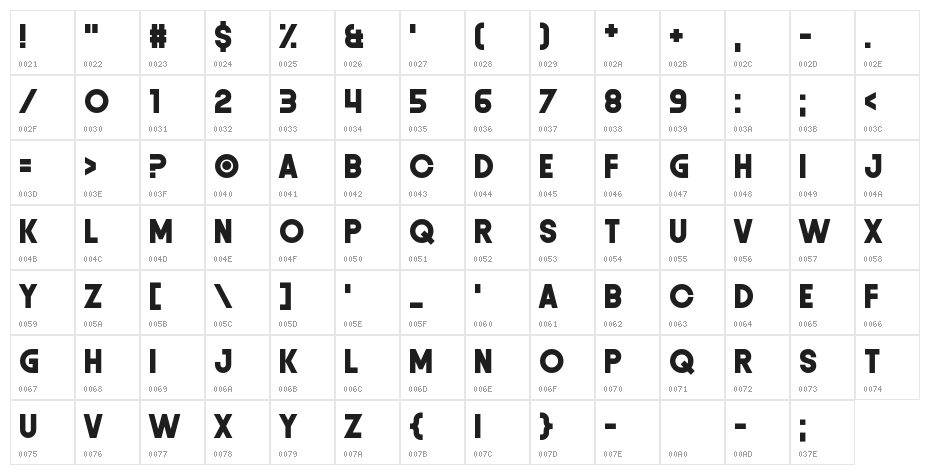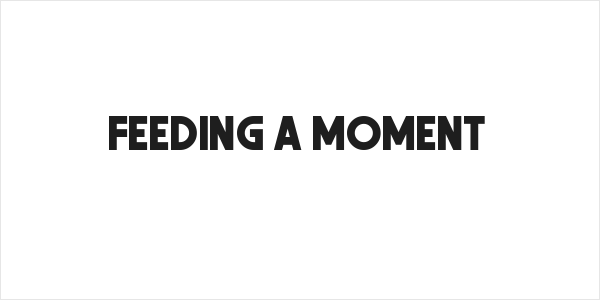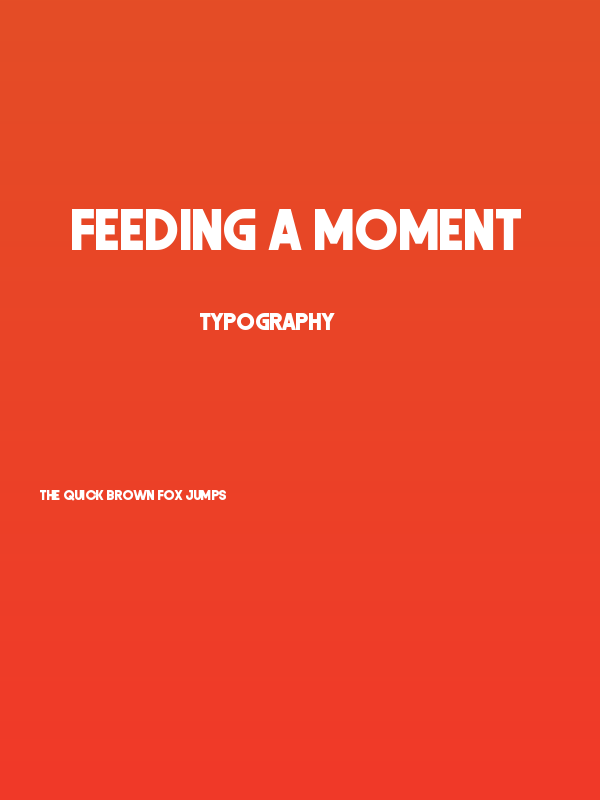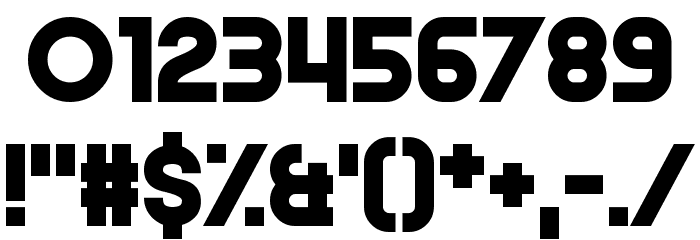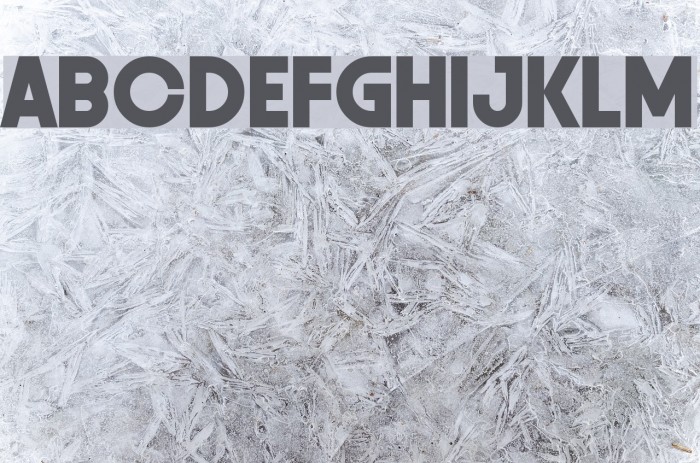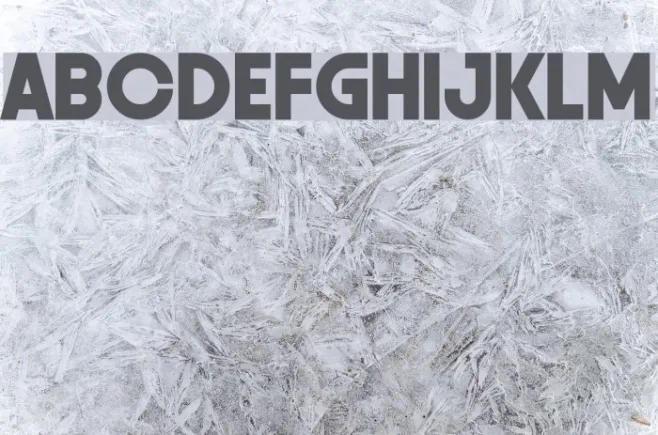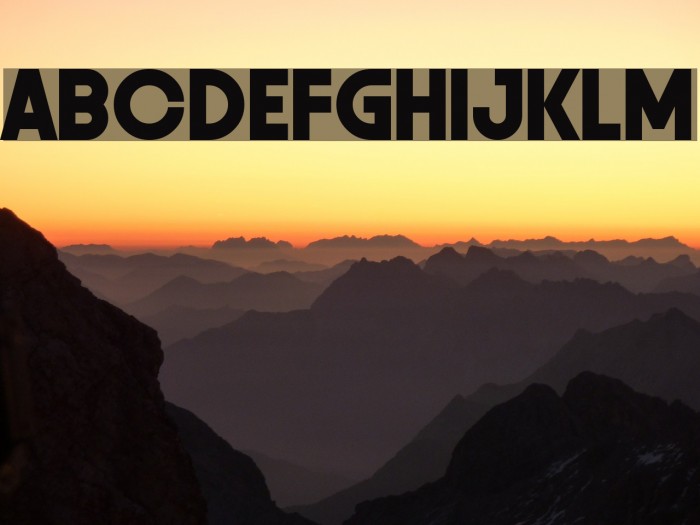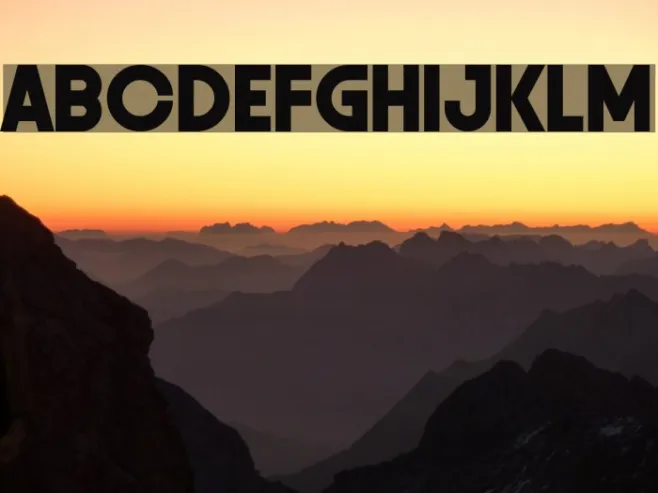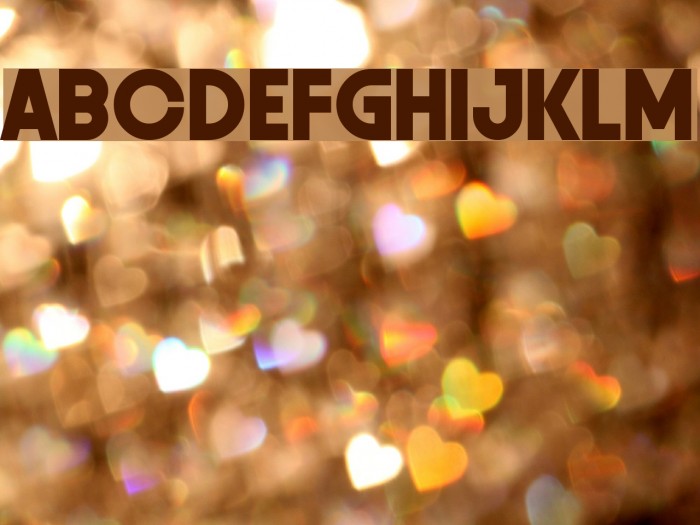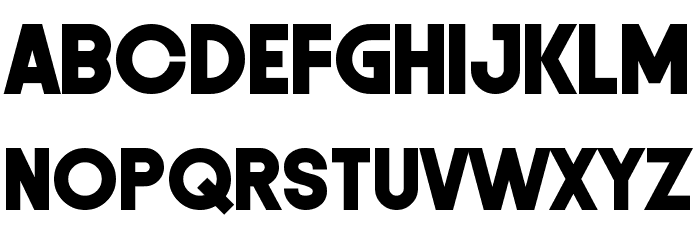
Feeding a Moment Font
Feeding a Moment Description
This font features bold, geometric letterforms with a strong presence. The characters are constructed with clean lines and uniform stroke widths, giving it a modern and assertive appearance. The uppercase and lowercase letters maintain a consistent style, with a slightly condensed width that enhances readability while maximizing space efficiency. The numerals and special characters are designed to match the boldness and clarity of the alphabet, ensuring cohesive visual communication across various applications. The font's design is ideal for making impactful statements, with its high contrast and solid structure making it suitable for both digital and print media.
| Proposed Projects | Ideal for branding projects, advertising campaigns, poster designs, and digital media where a strong visual impact is required. |